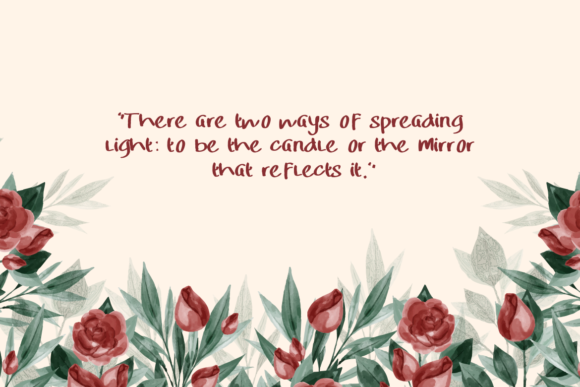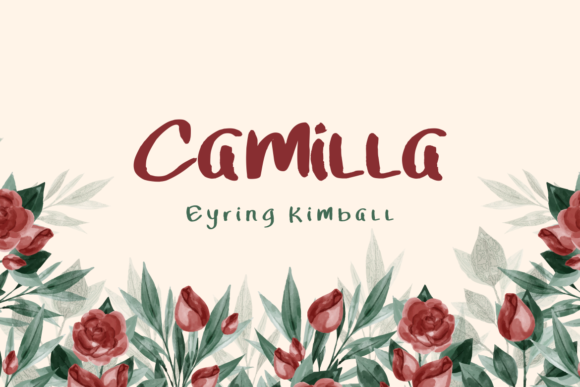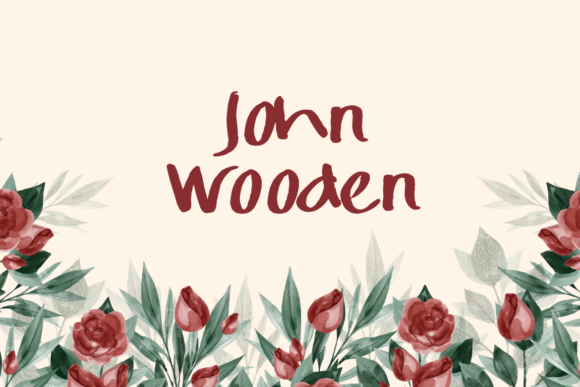
Ratulangi Font
About Ratulangi Font
“Ratulangi” is introduced as a handmade modern hand lettering font that seamlessly blends contemporary and classic typography elements, featuring some captivating alternates. This font takes inspiration from the early 1800s, infusing a classic touch into the design landscape of the present decade.
The term “handmade” suggests that each letterform is crafted with a personalized and artisanal approach, contributing to the uniqueness and authenticity of the font. Hand lettering, in particular, often involves the creation of custom letterforms by hand, providing a distinct and human touch to the characters.
The combination of modern and classic typography in “Ratulangi” indicates a fusion of timeless design principles with contemporary aesthetics. This blending of styles allows the font to cater to a diverse range of design preferences, appealing to those who appreciate both the elegance of classic lettering and the sleekness of modern typography.
The inclusion of alternates enhances the font’s versatility, providing designers with creative options for customization. Alternate characters can be utilized to add variation and uniqueness to the typography, contributing to a more visually engaging and expressive design outcome.
Overall, “Ratulangi” presents itself as a font that bridges the gap between different eras of typography, offering a modern yet classic aesthetic. With its handmade and personalized approach, along with the inclusion of alternates, the font aims to provide designers with a tool that adds character and sophistication to a variety of design projects. Whether applied to branding, packaging, or other creative endeavors, “Ratulangi” seeks to bring a timeless and bespoke quality to contemporary design.